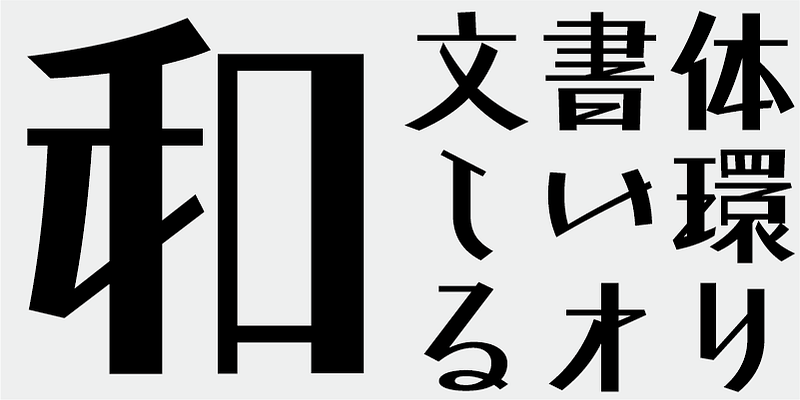
AB Gagaku B Font Free Download is a refined and elegant Japanese typeface inspired by traditional aesthetics and the cultural richness of Gagaku, the ancient court music of Japan. The name “Gagaku” (雅楽) reflects the typeface’s formal and ceremonial feel, making it ideal for projects that require a sense of grace, sophistication, and cultural heritage. It’s perfect for use in luxury branding, traditional event posters, cultural publications, and any design that seeks to embody an air of nobility and grace.
AB Gagaku B Font Free Download features sharp, elegant strokes with subtle curves and a balanced structure, making it suitable for both titles and body text. The font supports Hiragana, Katakana, Kanji, and basic Latin characters, allowing it to work seamlessly for bilingual designs or projects that mix Japanese and Western text.
Elegant, graceful, and deeply cultural—AB Gagaku B Font is the perfect choice for designs that need to convey a sense of traditional beauty and refined class.